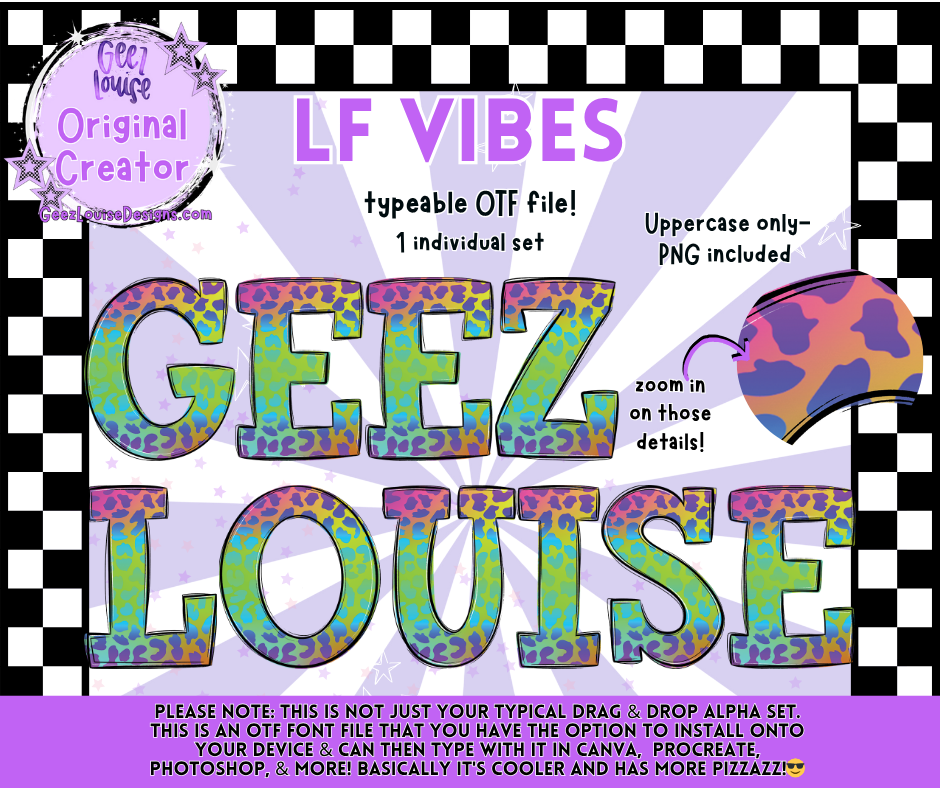
LF Vibes Alpha- OTF Font with PNG Letters (Uppercase)
Get loud and legendary with the LF Vibes Alpha OTF Font — a pastel-packed, Lisa Frank-inspired typeable alphabet bursting with leopard print, polka dots, and pure nostalgic pizzazz! Perfect for small shop merch, chaotic captions, and everything rainbow and emotionally unhinged.
Add some emotional sparkle to your designs with a font that’s bold, boutique, and unapologetically loud. LF Vibes isn’t just a typeface — it’s a whole mood. 🦄💅🔥